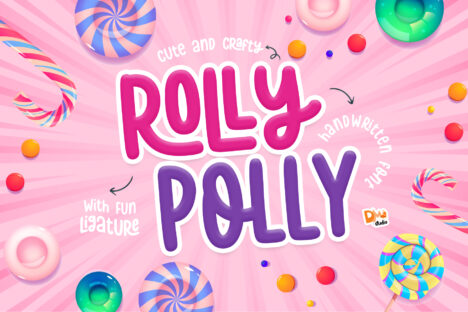
Rolly Polly Font
Rolly Polly Font is a delightful and whimsical typeface that brings a playful touch to your designs. With its rounded, friendly letterforms and unique style, this font is perfect for a variety of creative projects including children’s books, posters, branding, invitations, and more. Enhance your designs with the charming and cheerful aesthetic of the Rolly Polly Font.
1. Playful and Whimsical Design: The Rolly Polly Font features rounded, friendly letterforms that add a fun and cheerful touch to your text.
2. Versatile Application: Ideal for a wide range of design projects such as children’s books, posters, branding, and invitations, making your designs stand out with a playful flair.
4. Uppercase and Lowercase Letters: The font includes both uppercase and lowercase letters, providing flexibility and creative freedom in your designs.
5. Punctuation and Symbols: Comprehensive set of punctuation marks, numerals, and symbols for consistent and versatile use in various design projects.